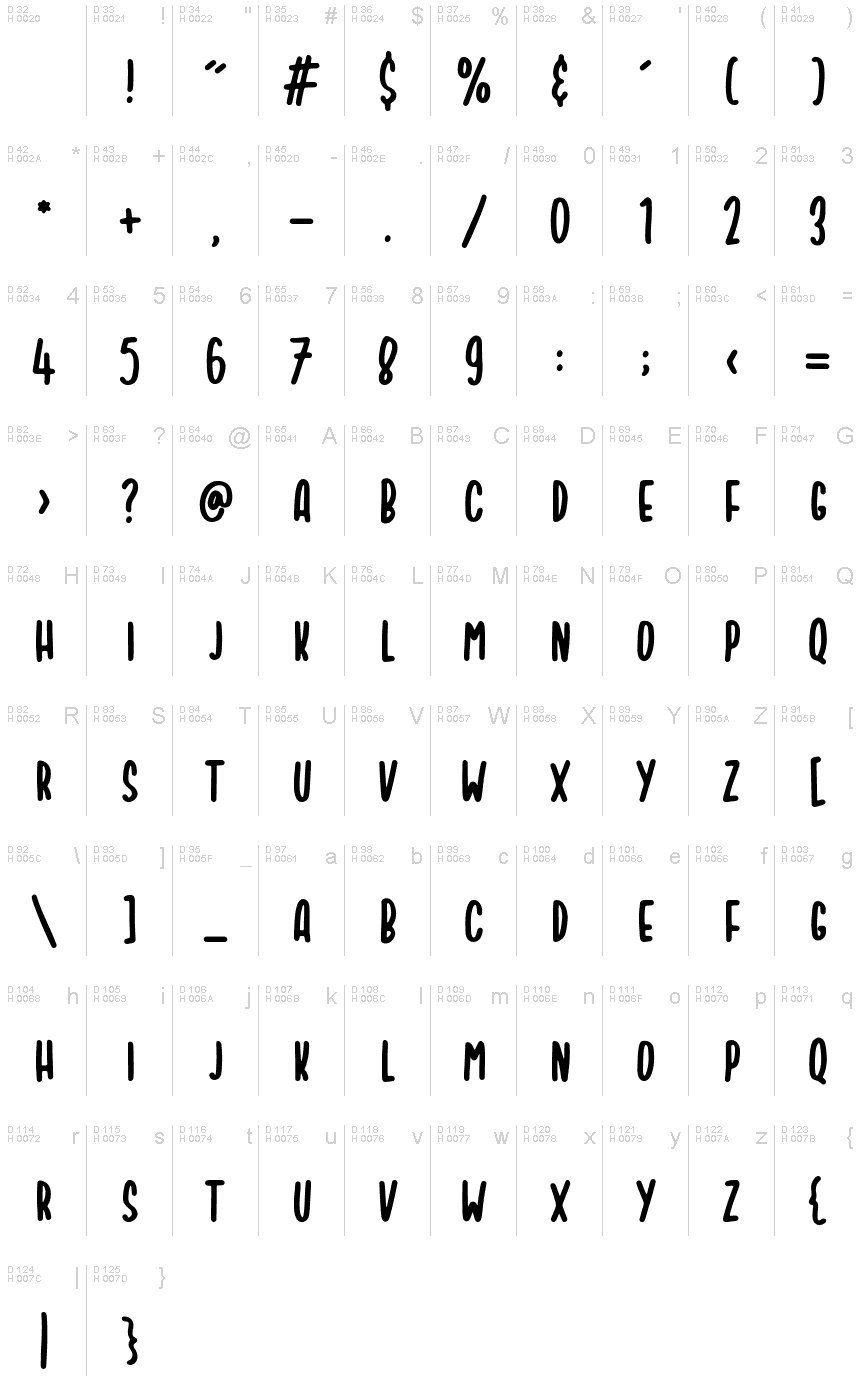
Smilecake
Meet Smilecake, the charming handwritten font designed by Balpirick Studio. With a semi-light weight and extra-condensed width, it exudes an air of elegance, perfect for adding a touch of sophistication to your projects. Its whimsical yet refined style is perfect for wedding invitations, greeting cards, and branding materials. Use it for your next DIY project or as a creative touch to your website design. Smilecake's unique personality will make sure that your content stands out from the crowd.